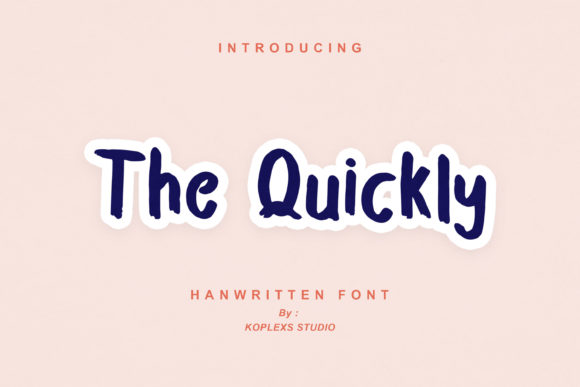
Introducing The Quickly Font, a whimsical and carefree handwritten font created by Koplexs Studio, designed to bring a touch of playful elegance to your digital designs. Crafted with meticulous attention to detail, The Quickly emulates the charm and authenticity of hand-lettering, effortlessly adding a personalized touch to your creations.
With its smooth, flowing lines and a hint of playfulness, The Quickly captures the essence of handwritten notes, making it perfect for adding a personal touch to invitations, greeting cards, posters, and social media posts. Its versatility extends to branding and logo design, where its unique character can elevate your brand's identity and leave a lasting impression on your audience.
Step into a world of creativity and expression with The Quickly Font. Let your imagination run wild as you explore the endless possibilities it offers. From heartfelt messages to eye-catching designs, The Quickly will undoubtedly become your go-to font for adding a touch of warmth and personality to your digital creations.